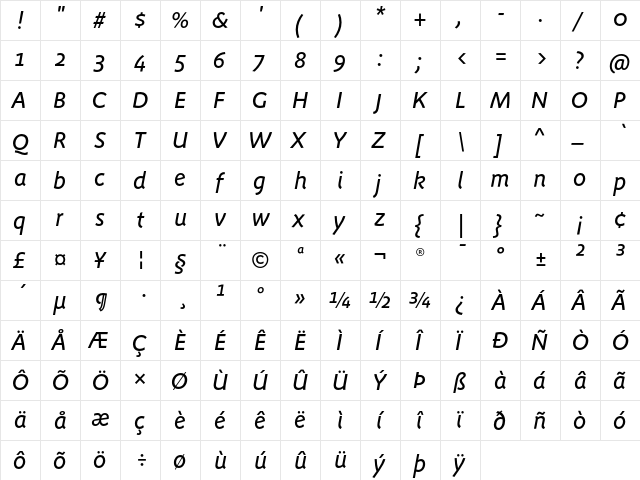
Megano-MediumItalic Regular
Design Context for Megano-MediumItalic Typeface
Megano-MediumItalic takes a measured approach to typography — its balanced proportions and neutral character make it a reliable workhorse for both digital and print work. Its italic angle brings a sense of urgency and motion to the letterforms.
Pro Tip: Use Megano-MediumItalic for emphasis, pull quotes, and subheadings where its slanted energy can add rhythm to the layout.